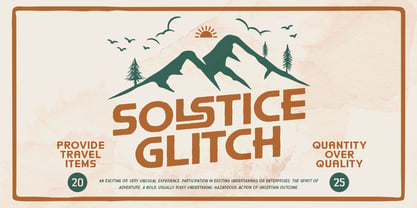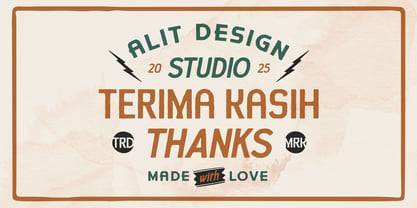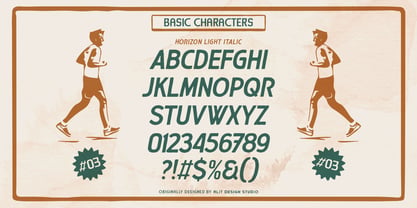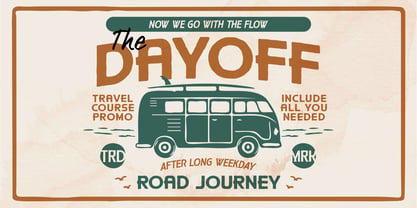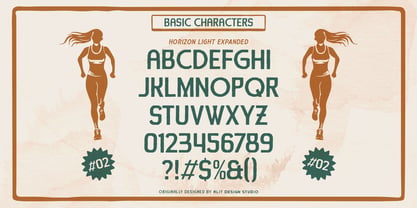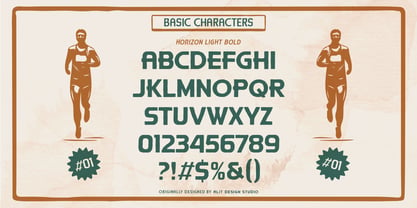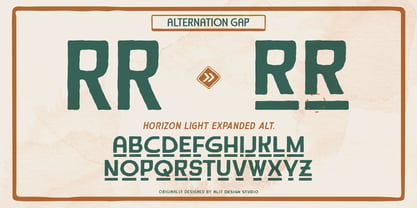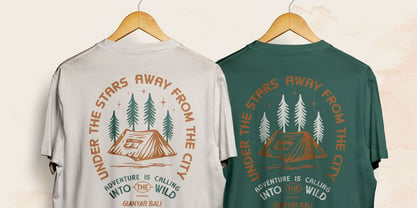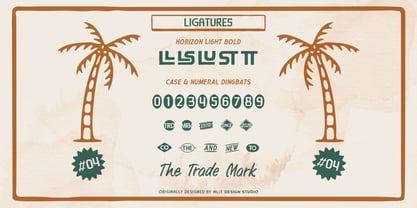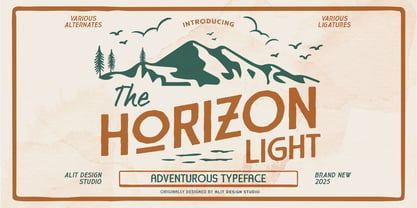
Horizon Light Dingbat
by Alit Design
The Horizon Light Dingbat Font Family was designed by Alit Suarnegara and published by Alit Design. Horizon Light Dingbat contains 4 styles and family package options. More about this family
Horizon Light – Adventurous Vintage Font Family & Design Pack Embark on a creative journey with Horizon Light. Inspired by the great outdoors, vintage travel badges, and the raw beauty of nature, Horizon Light is more than just a typeface—it is a complete design toolkit. With its rough edges and hand-stamped texture, this font family captures the authentic feel of folk art and classic letterpress printing. Whether you are designing a logo for a coffee brand, a t-shirt for a hiking club, or packaging for artisanal goods, Horizon Light provides that perfect "imperfect" touch that makes a design feel human and organic. The Horizon Light Family Includes: This download includes 4 distinct fonts that work perfectly together to create visual hierarchy in your designs: Horizon Light Bold: Strong, sturdy, and impactful. Perfect for main headlines and logos that need to stand out. Horizon Light Expanded: A wider stance for sub-headlines or when you need your text to breathe and take up space. Horizon Light Italic: Dynamic and slanted, adding a sense of movement and speed—great for sports themes or "call to action" text. Horizon Light Dingbat: A collection of hand-drawn illustrations featuring mountains, pine trees, camping tents, jeeps, surfers, palm trees, and vintage shapes. Key Features: Rough Stamp Folk Aesthetic: Every letter looks like it was hand-stamped, giving your work a tactile, vintage texture. Instant Design Pack: By combining the text fonts with the included Dingbats, you can create professional-looking badges and illustrations in seconds. Opentype Features: Includes standard ligatures (seen in the preview) and creative alternates (like the underline swashes) to give your typography a custom look. Versatile Use: Ideal for t-shirt designs, merchandise, stickers, logos, craft beer labels, poster art, and social media quotes.
Designers: Alit Suarnegara
Foundry: Alit Design